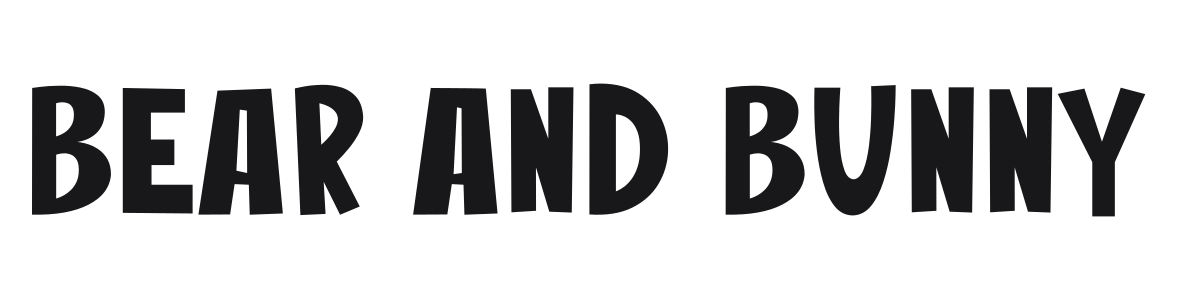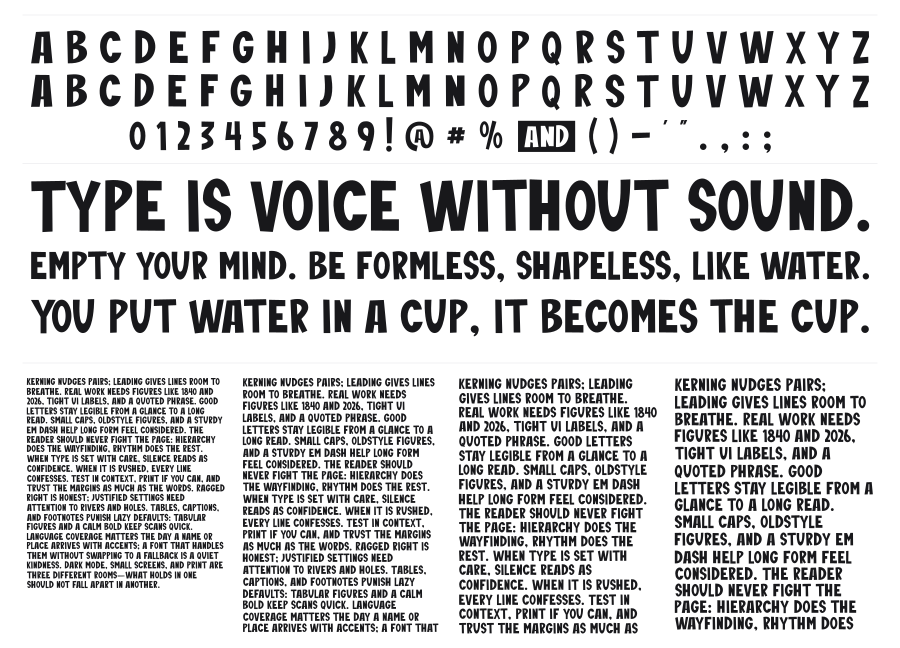
Bear And Bunny
Bear And Bunny is a bold, condensed display font with a hand-crafted cartoon personality. Slight irregularities in stroke weight and rounded terminals give it a storybook warmth that feels drawn rather than constructed. It works best at large sizes for children's media, playful branding, and editorial headlines.